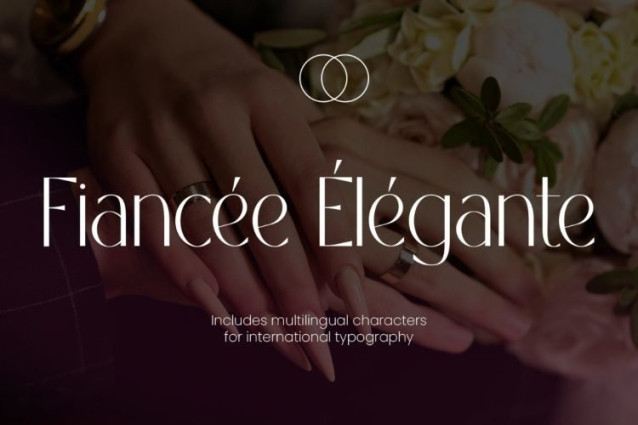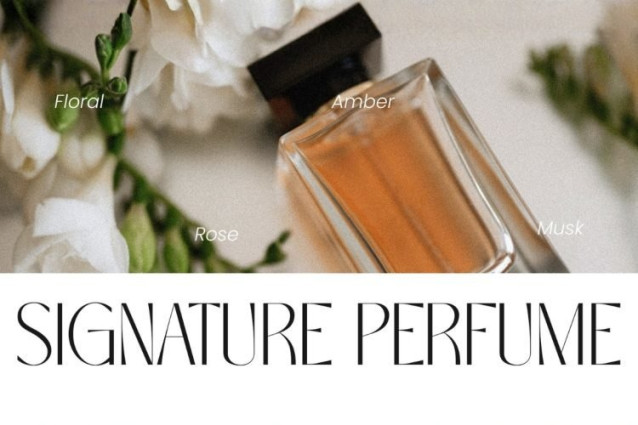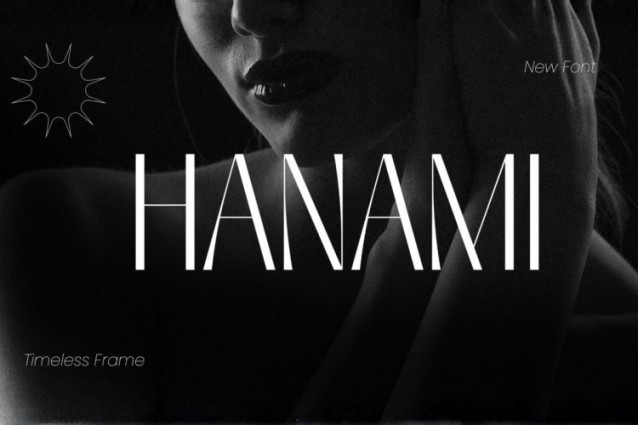
Hanami Font
Hanami Font is an elegant, high-contrast display font with a delicate, romantic personality. Characterized by its tall, condensed proportions, ultra-thin hairlines, and softly flared terminals rather than traditional serifs, this typeface exudes a sense of modern luxury and quiet sophistication.
Best suited for high-end cosmetic packaging, perfume labels, boutique fashion branding, wedding stationery, and editorial mastheads. It shines brightest at large display sizes where the dramatic contrast between its thick and thin strokes can be fully appreciated.